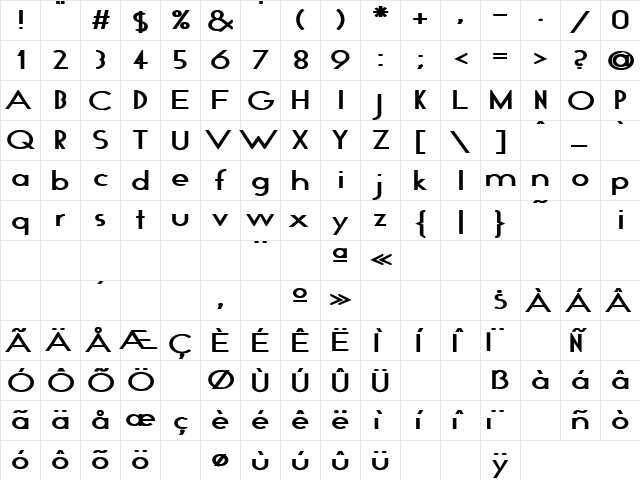
Time 4 Bold
Design Context for Time 4 Typeface
Time 4 offers clean, dependable letterforms without strong stylistic allegiance, making it a practical choice for designers who need flexibility. Its bold stroke weight gives it real presence on the page.